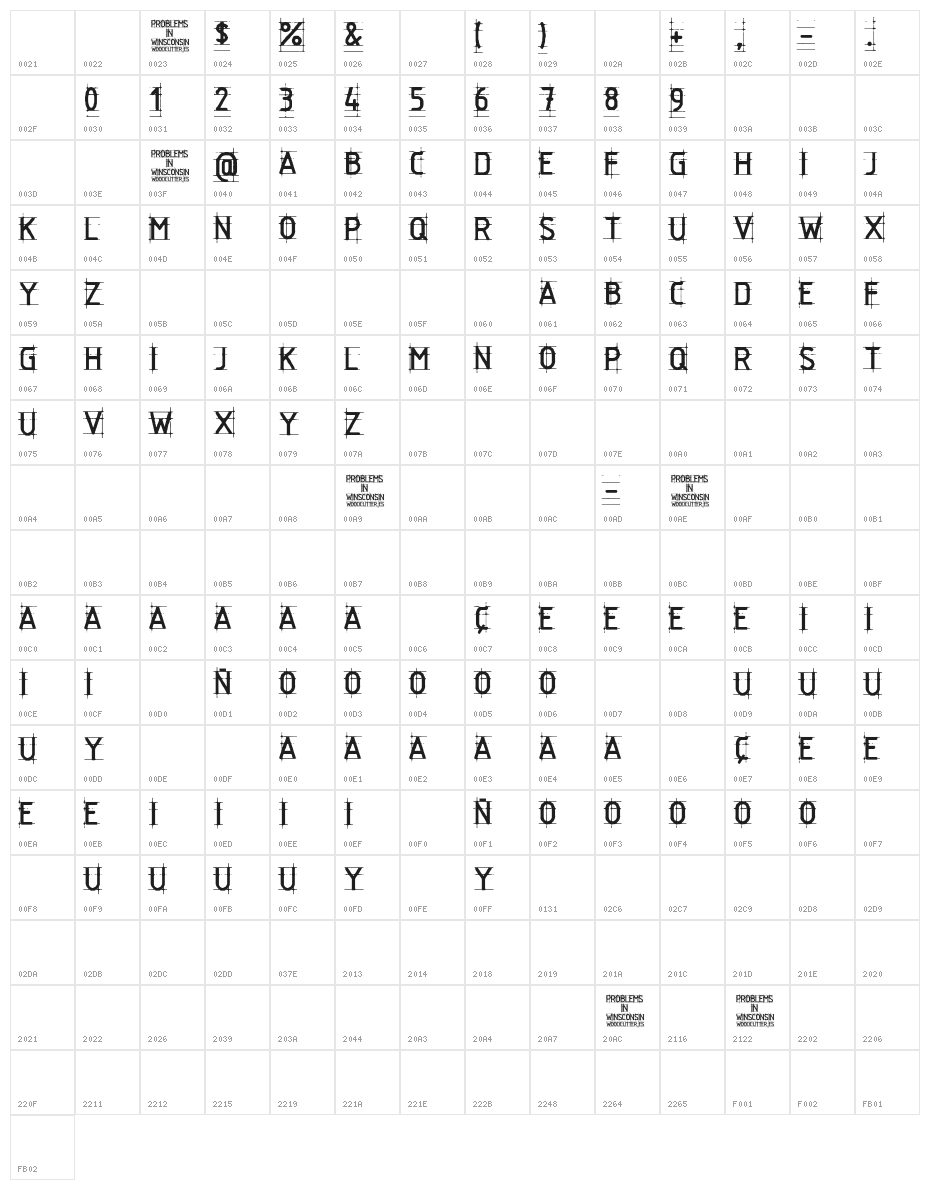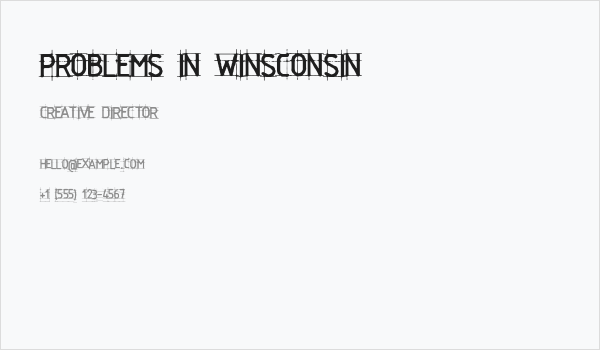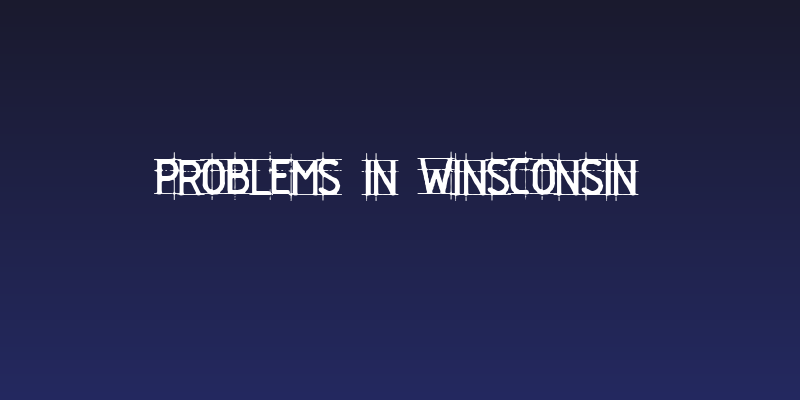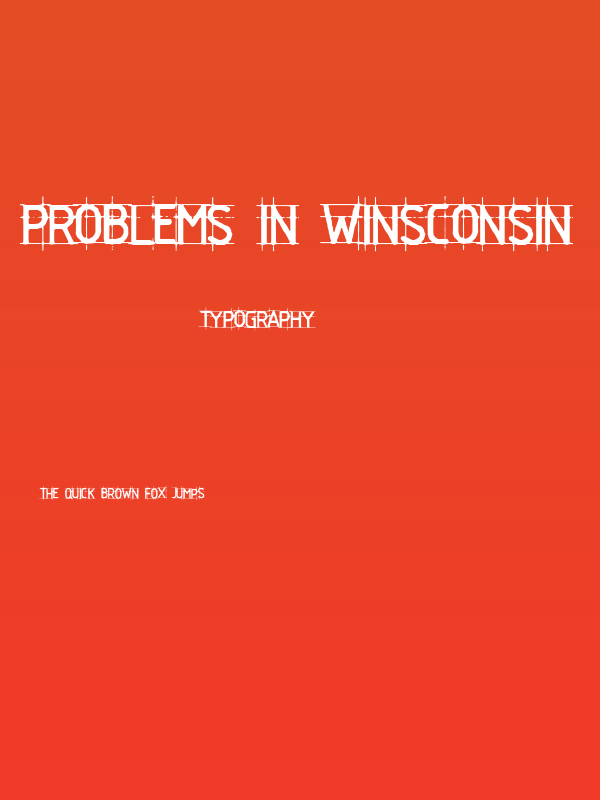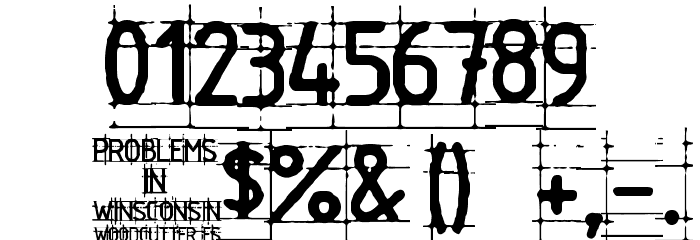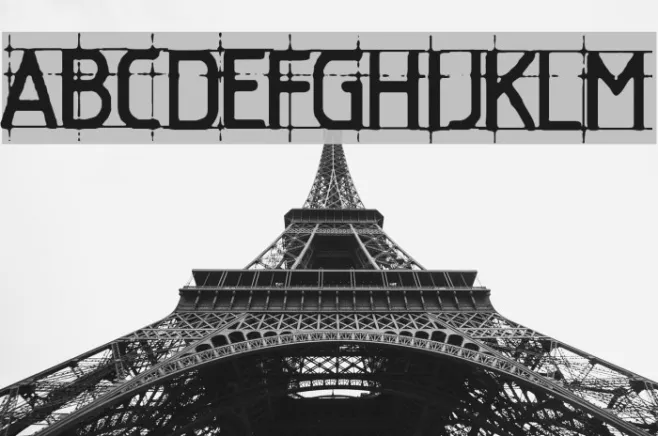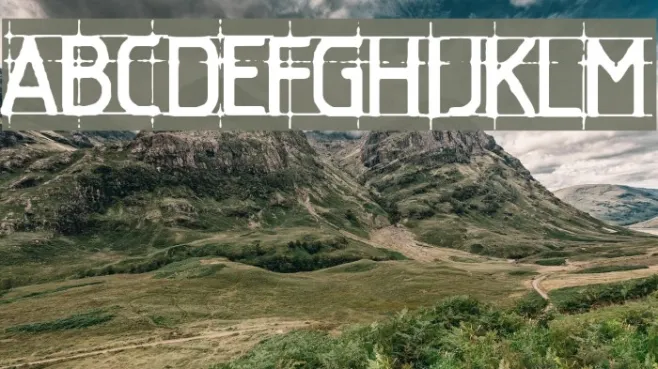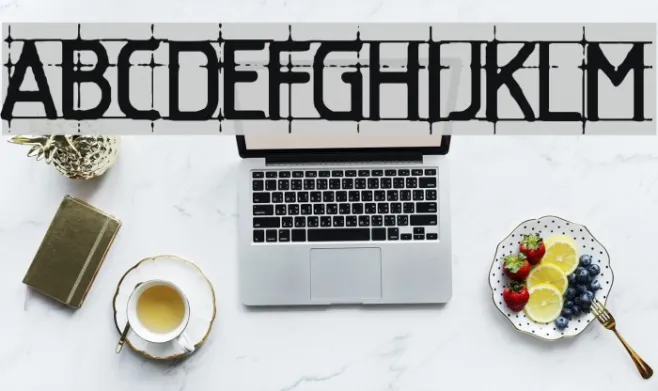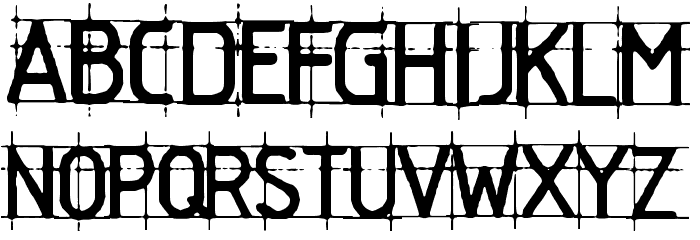
Problems in Winsconsin Font
Problems in Winsconsin Description
This font features a unique and bold design with a strong geometric structure. The characters are constructed with thick vertical and horizontal strokes, giving them a sturdy and industrial appearance. The uppercase letters are particularly striking, with sharp angles and a consistent height that creates a uniform look. The lowercase letters maintain the same boldness, with a slightly more compact form. Numbers and special characters are designed to match the overall aesthetic, ensuring a cohesive look across all text. The font's distinct style makes it suitable for attention-grabbing headlines and impactful designs.
| Overall Style | Industrial, Modern |
| Proposed Projects | Ideal for posters, signage, branding, and any project requiring a bold, impactful typeface. |